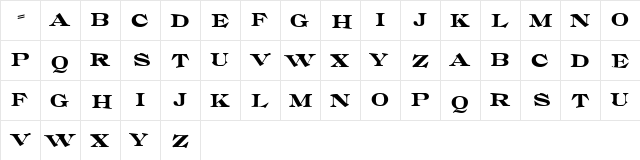
Extra HPLHS
Design Context for Extra Typeface
Extra is a composed and adaptable typeface that performs quietly and consistently across a wide range of design contexts.